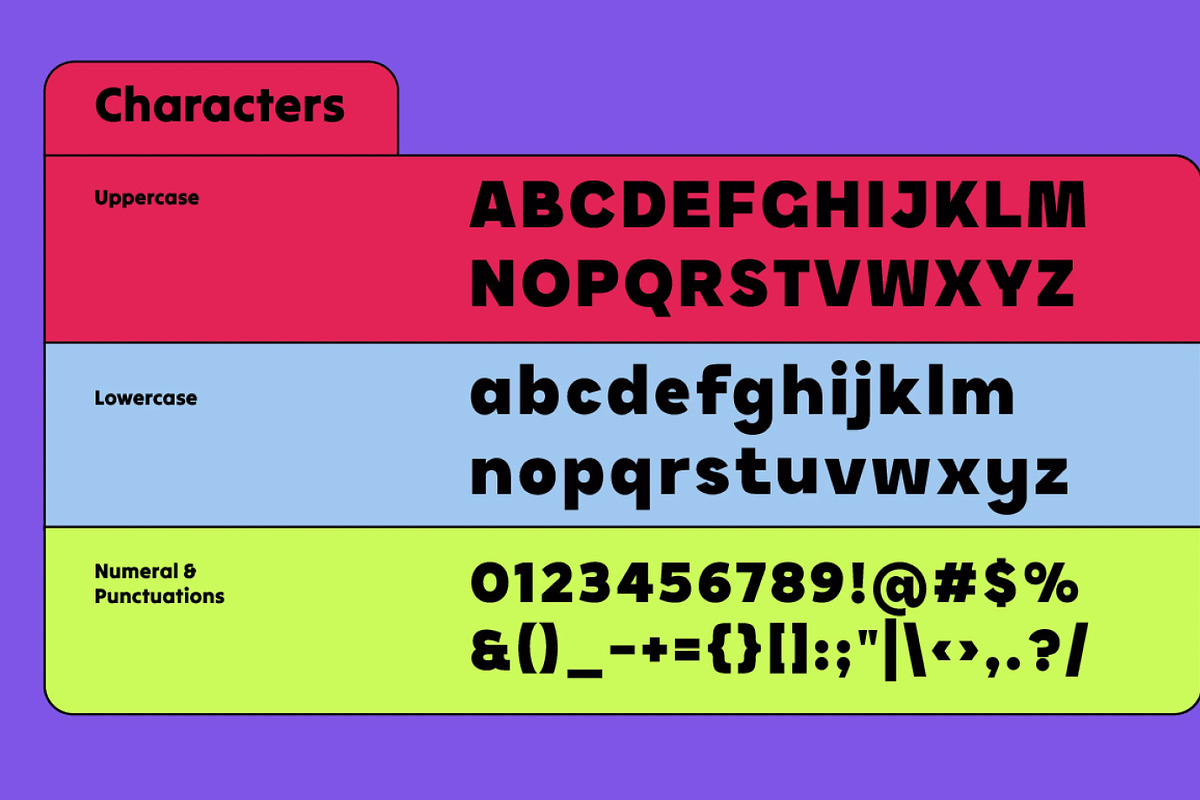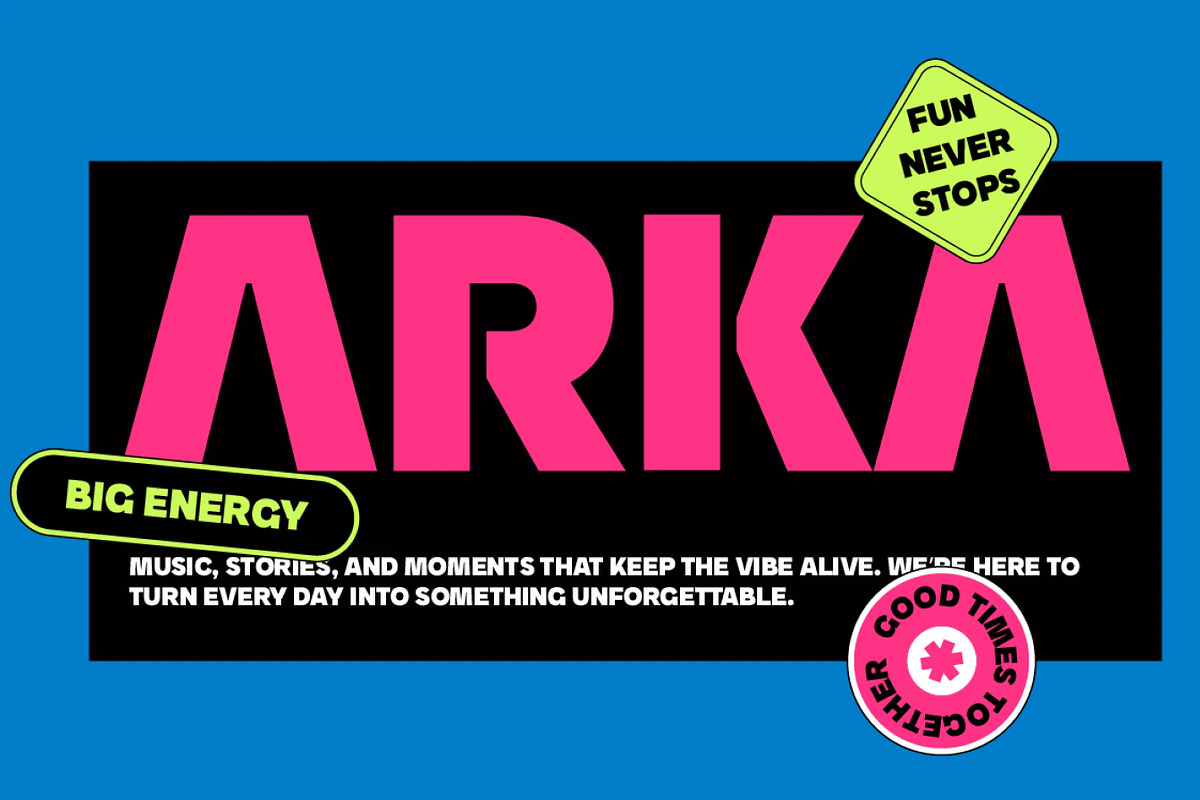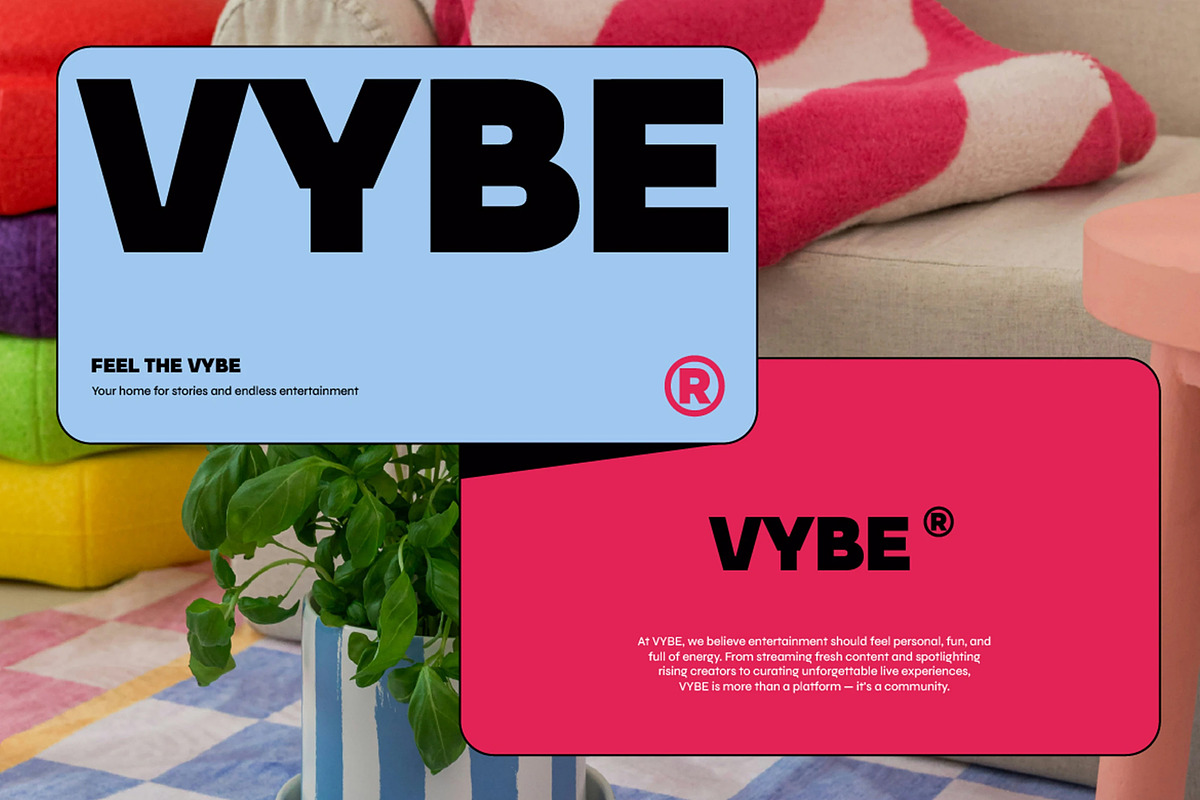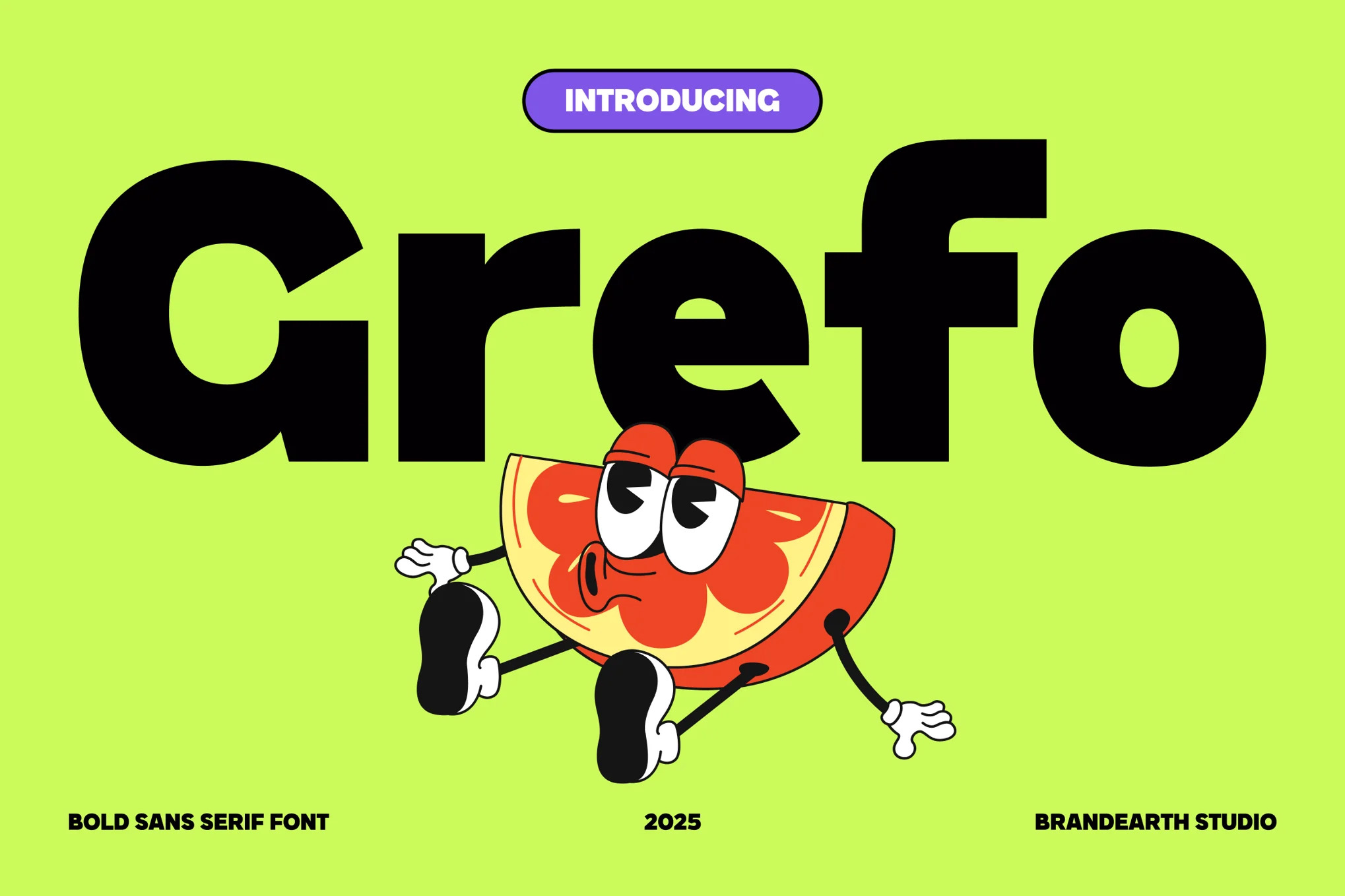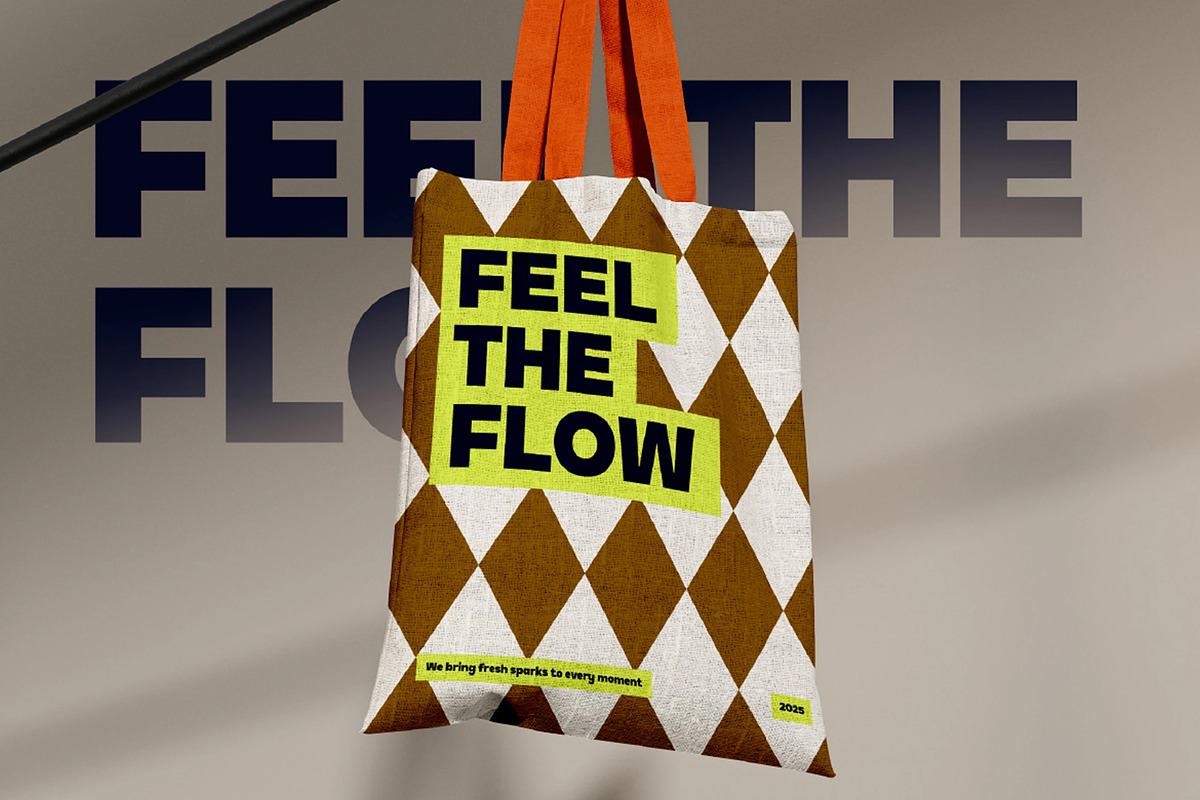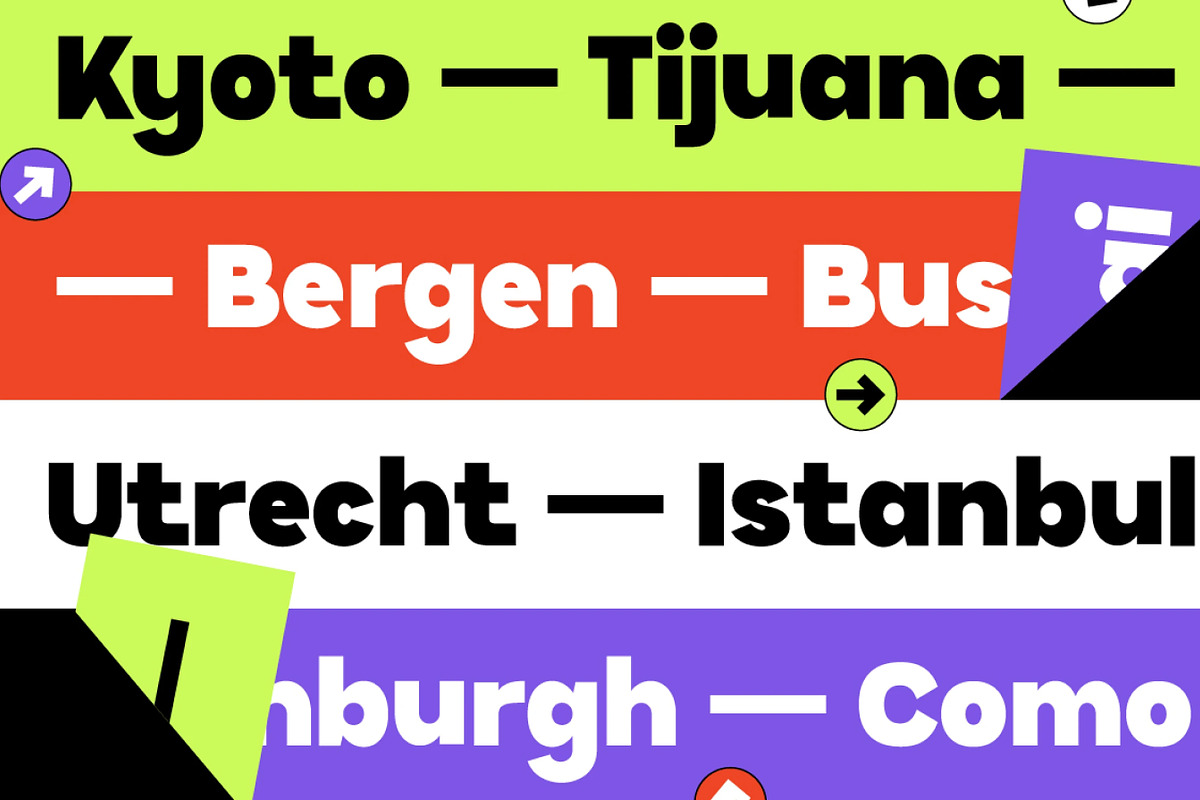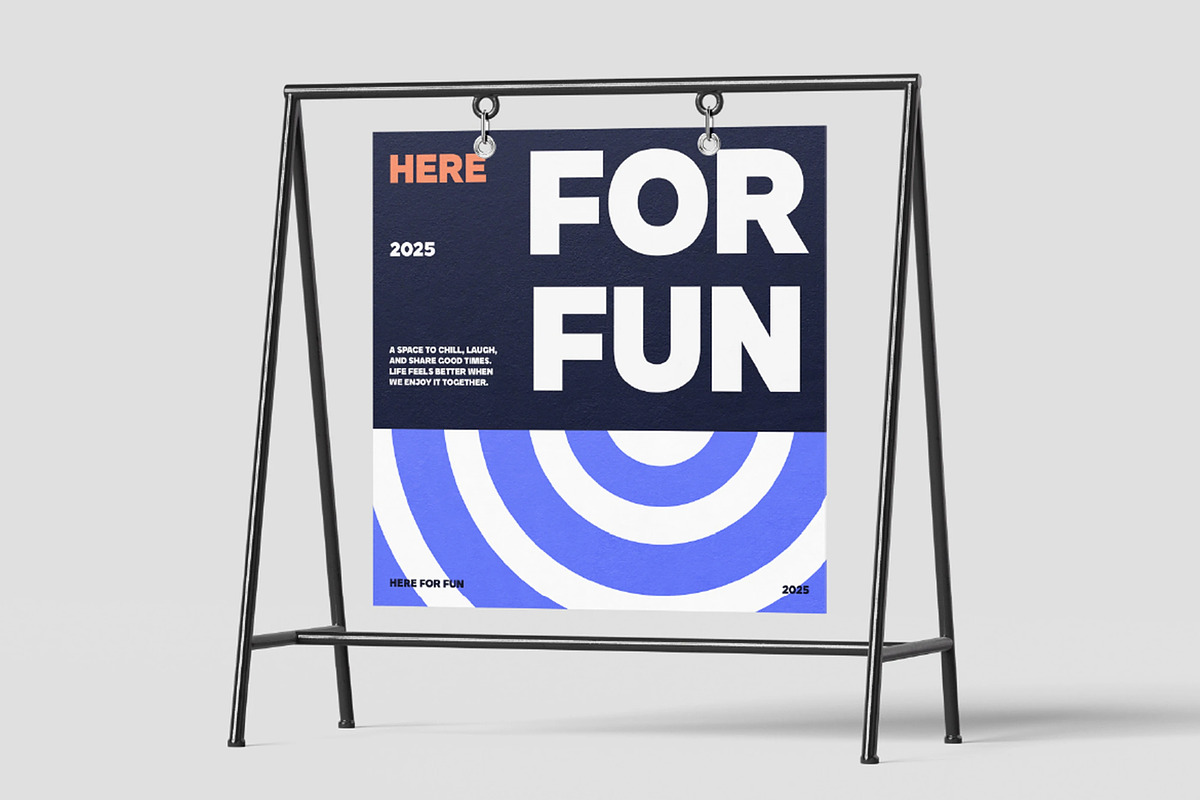
Grefo – Chunky Playful Display Font
Grefo is a bold sans serif font built with modern proportions, geometric precision, and smooth curvature that creates a striking and versatile appearance. Its strong letterforms emphasize clarity and balance, while refined details enhance readability across various mediums. Complete with uppercase, lowercase, numerals, and punctuation, Grefo offers flexibility for diverse design applications. The font's contemporary character blends functionality with visual strength, making it a dependable choice for both creative and professional projects.
The letterforms in Grefo are built with thick, chunky strokes and smooth rounded curves, creating a bouncy, confident rhythm that gives the typeface its bold, playful character. It features a friendly display quality that's perfect for branding, mascot logos, and eye-catching headline typography.
With its chunky weight and playful energy, Grefo bridges the gap between bold visual strength and approachable charm. It delivers a fun, dependable feel while remaining highly legible, making it ideal for youth branding, packaging, and lively creative projects.
Numeral & Punctuations